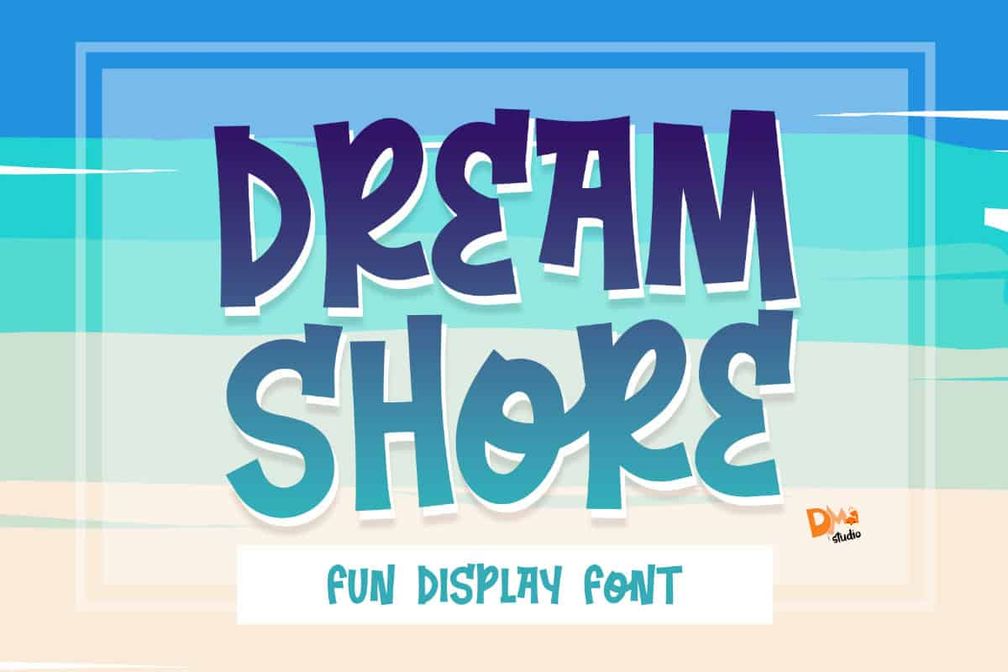
Dream Shore Font
Dream Shore Font is a captivating and versatile typeface designed to evoke a sense of dreaminess and creativity in your projects. With its elegant letterforms and unique style, this font is perfect for various applications, from branding and packaging to editorial designs. Immerse your creations in the enchanting aura of the Dream Shore Font.
1. Elegant and Dreamy Design: The Dream Shore Font boasts an elegant and dreamy design, adding a touch of sophistication to your text.
2. Versatility in Application: Ideal for a wide array of design projects, including branding, packaging, and editorial designs, enhancing your creations with a dreamy and creative flair.
4. Uppercase and Lowercase Letters: The font includes both uppercase and lowercase letters, providing creative flexibility and balance in your designs.
5. Punctuation and Symbols: A comprehensive set of punctuation marks, numerals, and symbols ensures consistency and ease of use in a variety of design contexts.